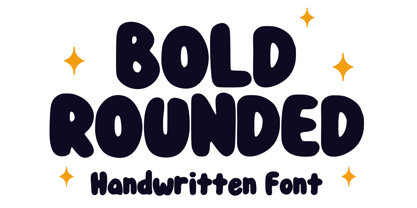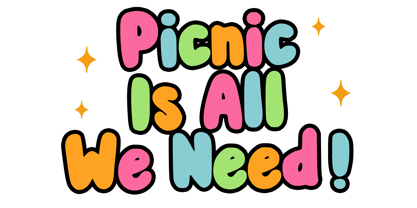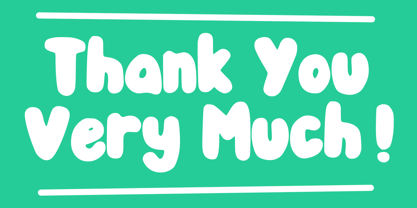
Bold Rounded
by Mvmet
The Bold Rounded Font Family was designed by Gabriel Valentinus and published by Mvmet. Bold Rounded contains 1 styles. More about this family
Bold Rounded is a playful and rounded bold cartoon display font perfect for all your creative projects! Ideal for t-shirts, children's book designs, party invitations, greeting cards, stickers, posters, and banners, this font adds a cheerful and vibrant touch to any design. Its bold character and friendly curves make it suitable for branding, web graphics, and editorial use, ensuring your designs stand out with a fun and lively aesthetic. Embrace the joy and excitement that Bold Rounded brings to your creations!
Designers: Gabriel Valentinus
Foundry: Mvmet
Mvmet is an Indonesia-based font studio which began making fonts in early 2020. Mvmet strives to make fonts fun and accessible for both the average computer user and professional designers, with original experimental fonts and affordable trend-setting commercial fonts. Mvmet also creates custom fonts for companies who want exclusive rights and a specific design for a typeface. Clients who have used Mvmet’s custom font services include some company in Indonesia and abroad.